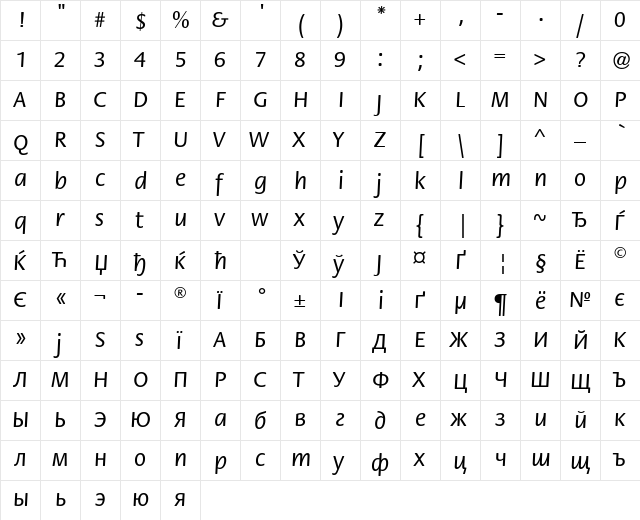
FloraCTT Regular
Design Context for FloraCTT Typeface
FloraCTT is a composed and adaptable typeface that performs quietly and consistently across a wide range of design contexts.